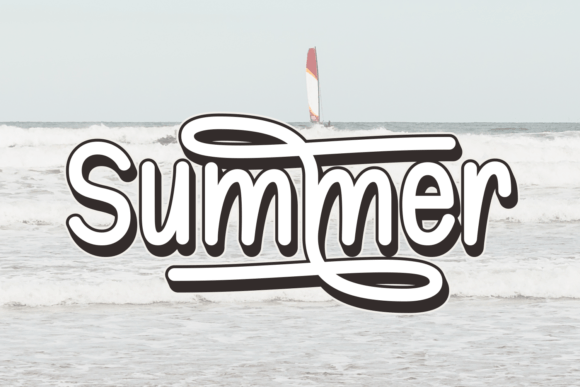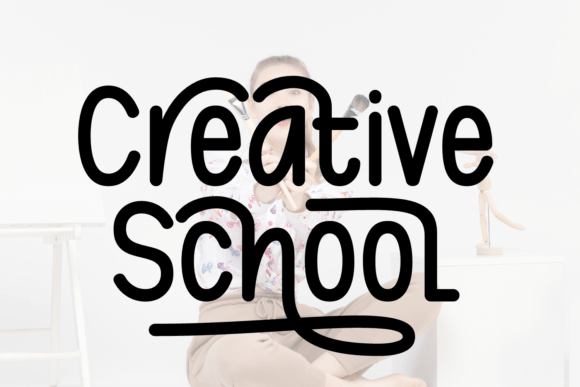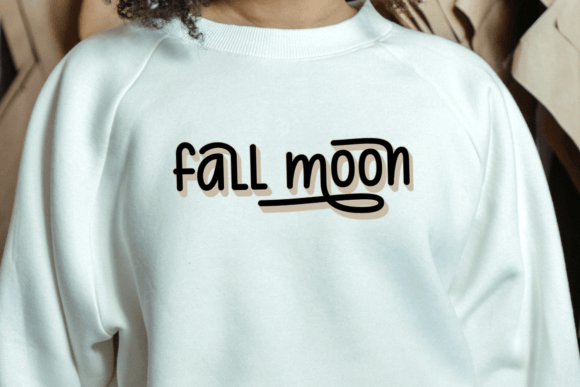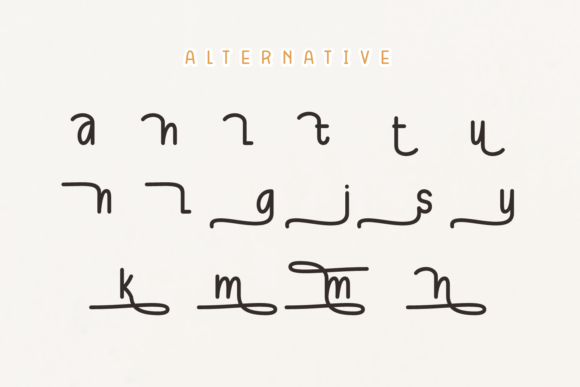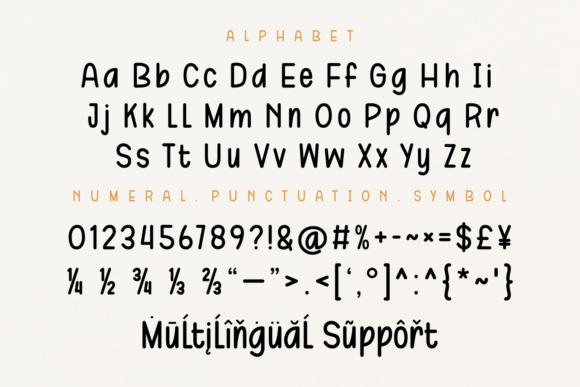
Introducing Fruit Falls Font: The Perfect Blend of Playful Elegance
Ah, summer is here! The season of adventure, freedom, and endless possibilities. As designers, crafters, and creative hobbyists, we’re always on the lookout for inspiration to capture the essence of this vibrant season. That’s where the Fruit Falls Font comes in – a captivating and interconnected calligraphy script that’s sure to bring a touch of whimsy to your designs.
- ✨ Unique and eye-catching design: Fruit Falls Font is unlike any other font out there. Its interconnected letters and flowing script make it perfect for creating beautiful, one-of-a-kind designs.
- ✅ Elegant and playful: This font effortlessly balances elegance and playfulness, making it suitable for a wide range of projects, from wedding invitations to children’s party decorations.
- ✅ Highly versatile: Fruit Falls Font can be used for both digital and print projects, and its scalability ensures that it looks great in any size.
- ⚠️ Glyph limitations: While Fruit Falls Font has a wide range of glyphs, some users may find that it lacks certain special characters. However, the font’s creator has thoughtfully included a range of stylistic alternates to help you get creative.
- ⚠️ Kerning issues: As with any script font, some users may experience kerning issues when using Fruit Falls Font in certain programs. However, these can usually be easily adjusted with a little practice and patience.
The Story Behind Fruit Falls Font: Designer Inspiration
According to the font’s creator, Fruit Falls Font was inspired by the carefree spirit of summer. The designer wanted to capture the essence of adventure and freedom in a font that would make designers feel like they’re sipping lemonade on a hot summer day. And, with Fruit Falls Font, they’ve certainly succeeded!
| Font Name | Fruit Falls Font |
| Author | Refy (7NTypes) |
Q: What makes Fruit Falls Font so special?
A: Fruit Falls Font’s unique blend of script and elegance, combined with its highly versatile design, make it a standout font for any project.